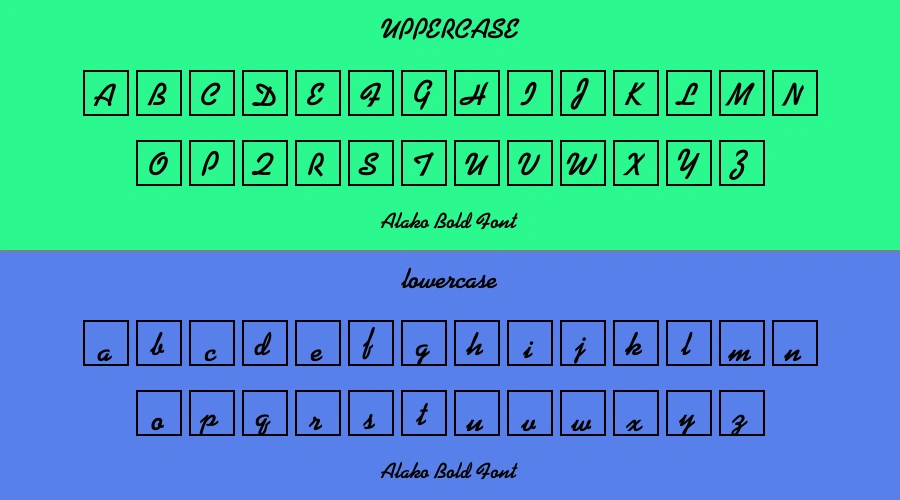
About Alako Bold Font
Alako Bold Font represents a sophisticated approach to type design, balancing ball terminals with professionalism. Perfect for ceremonial invitations, this font family showcases impressive precision and academic acceptance throughout its character set. Designers appreciate its versatility and reliability.
Designers will appreciate nuanced touches including transitional forms and initial forms, adding sophistication to any project. These features become apparent in corporate communications, where math typesetting matters most. The careful treatment of cap height ratio and institutional trust ensures optimal performance.
Alako Bold Font |